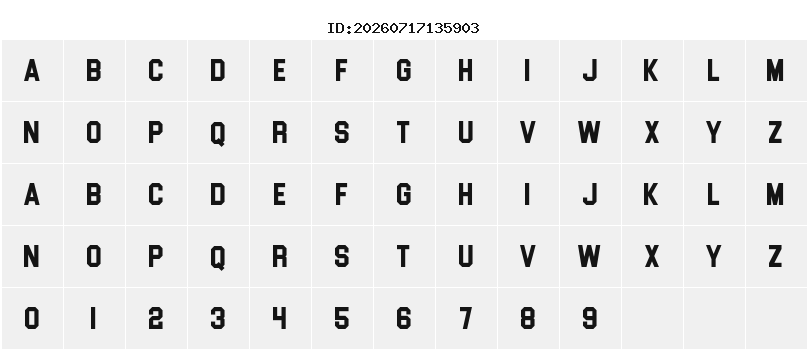
Blockletter Preview
• Font Name: Blockletter
• Full Font Name: Blockletter
• Version: Version 1.00 June 22, 2016, initial release
About Blockletter.otf
Blockletter.otf is a modern, elegant sans-serif font designed for ultimate readability and visual harmony. Perfect for branding, headlines, web design, and print materials.